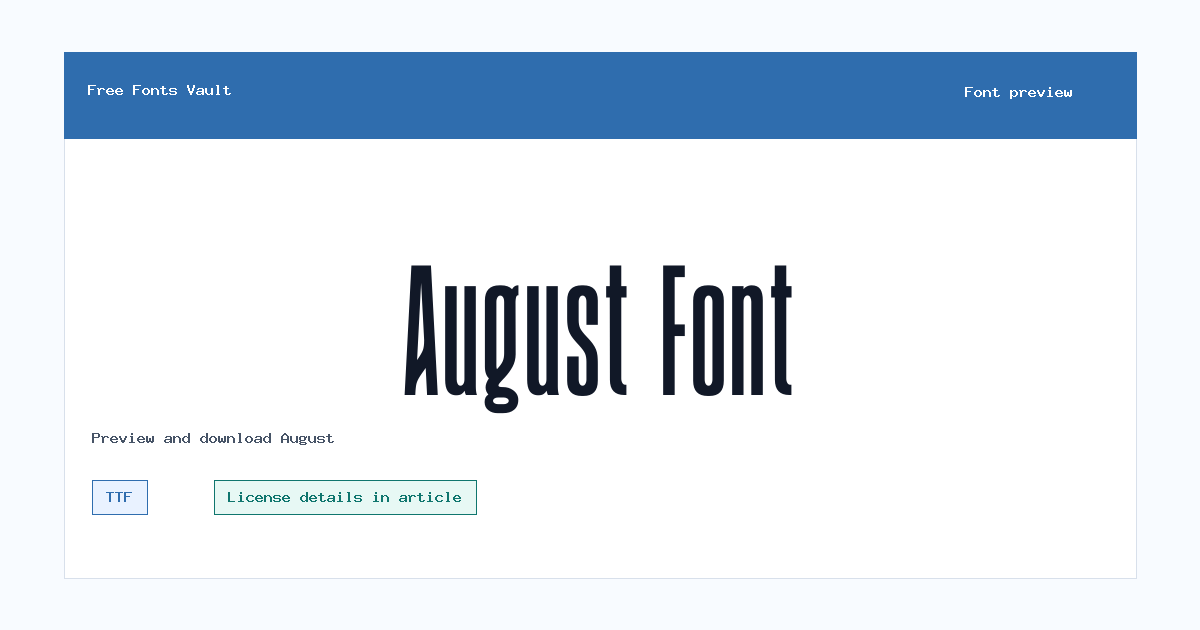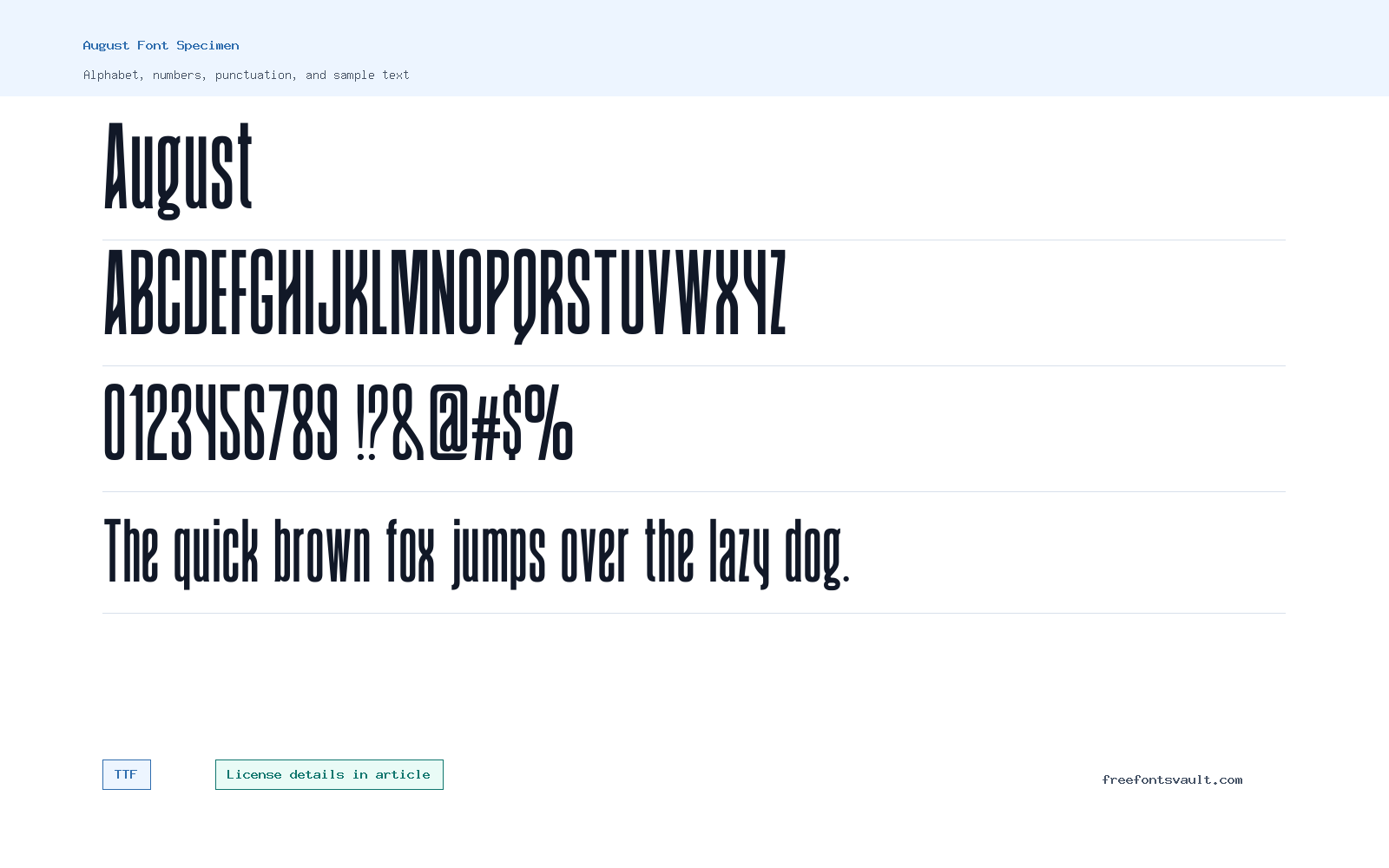
August
- Designer Ellen Luff
August is a bold display font credited to Ellen Luff. It is built for confident titles and polished visual moments, so preview your own wording before downloading to see how the weight, spacing, and character shapes fit your design.
Because this batch includes one bold style, plan the rest of your layout around it. Use August for the part of the message that should be noticed first, then pair it with a simpler font for paragraphs, details, price text, captions, and navigation. A bold display face can look excellent in a few words but become tiring if every line uses the same weight.
- Strong display personality for headings and short phrases
- Designer credited as Ellen Luff
- Best used with a clean companion font for longer reading text
- Logo drafts, posters, packaging concepts, and headline graphics
- Invitations, social images, product titles, and editorial openers
- Short display phrases where a bold style is part of the visual identity
Start with a short headline in the preview. If the result feels heavy, reduce the size slightly, add whitespace, or use August for the main word only while setting supporting copy in a quieter sans serif.
Who designed August?
The designer is listed as Ellen Luff.
What is August best for?
Use it for short display text such as headings, posters, packaging concepts, social graphics, and logo drafts.
Can I use August for paragraphs?
It is better as an accent or headline font. For long paragraphs, pair it with a simpler reading font and keep August for the most important words.